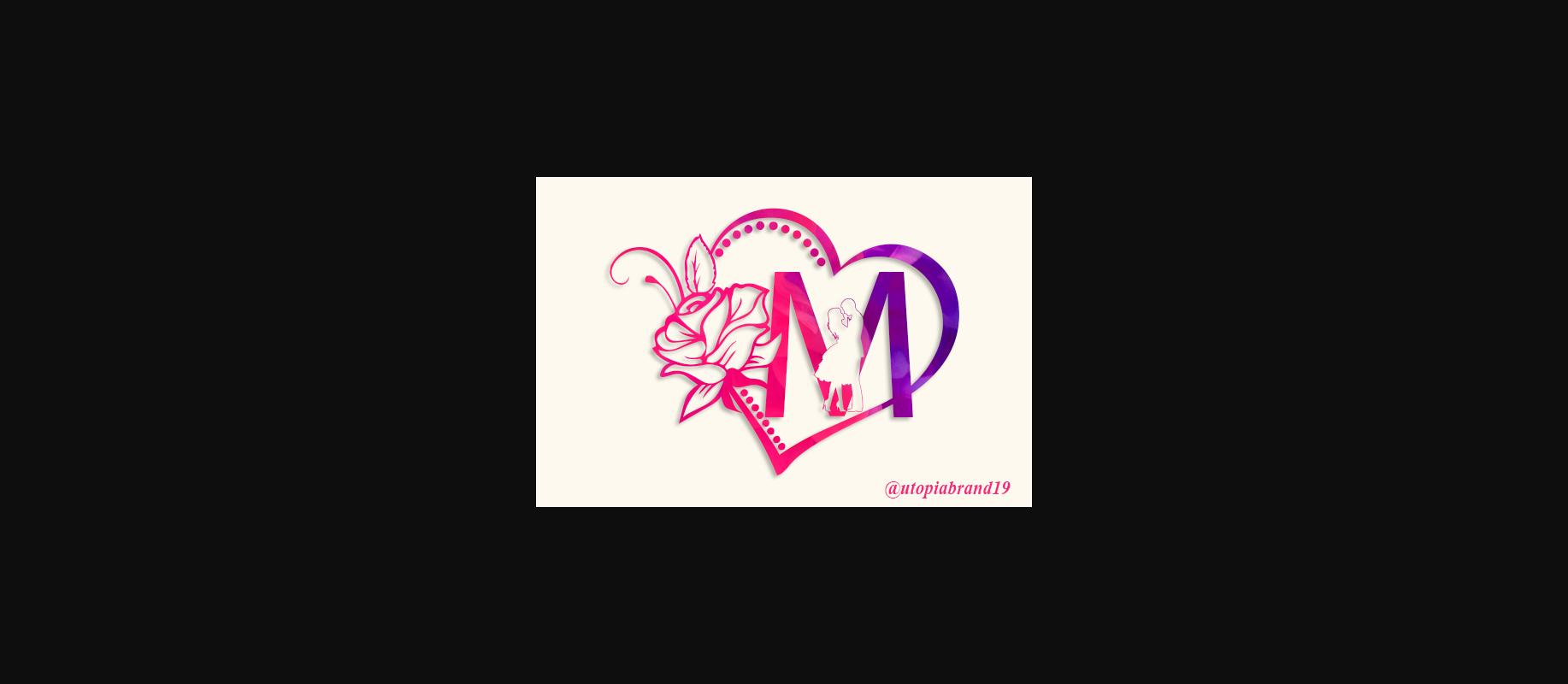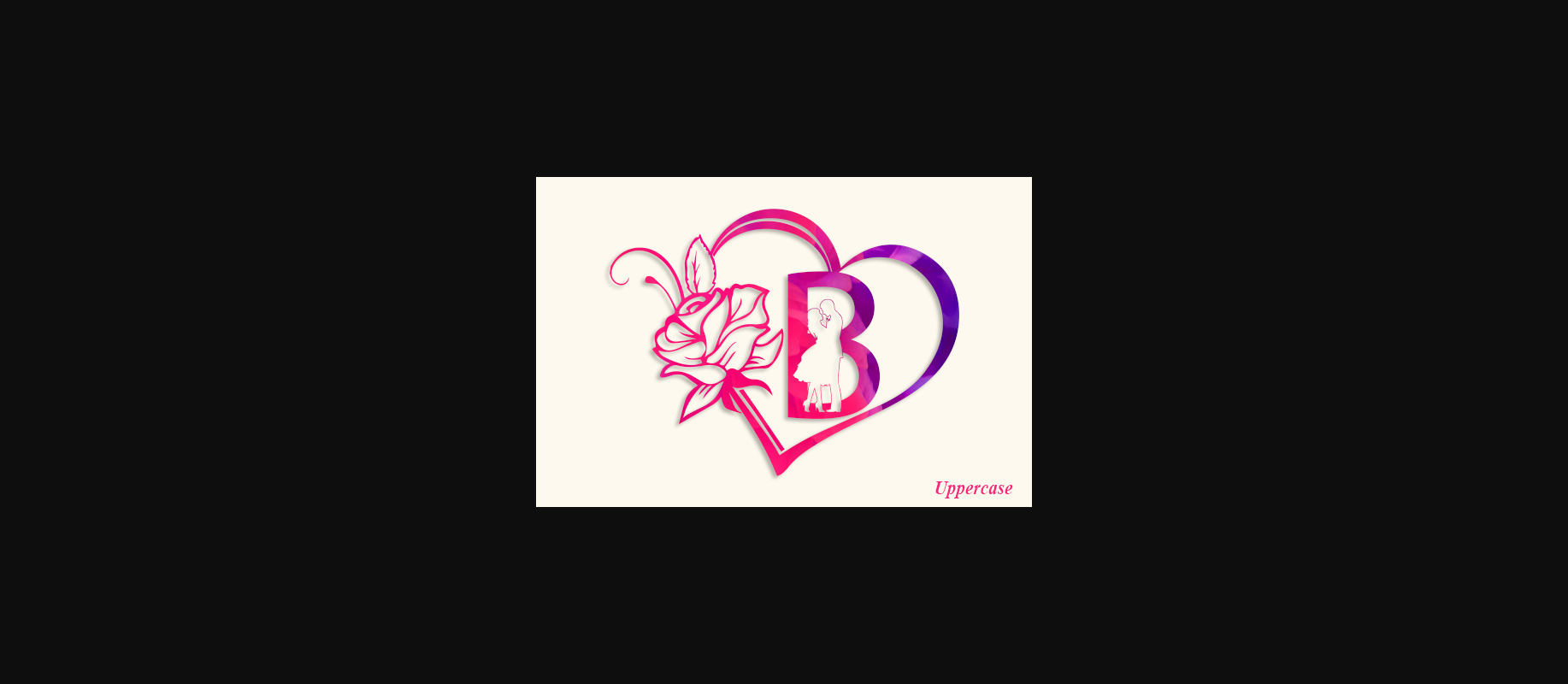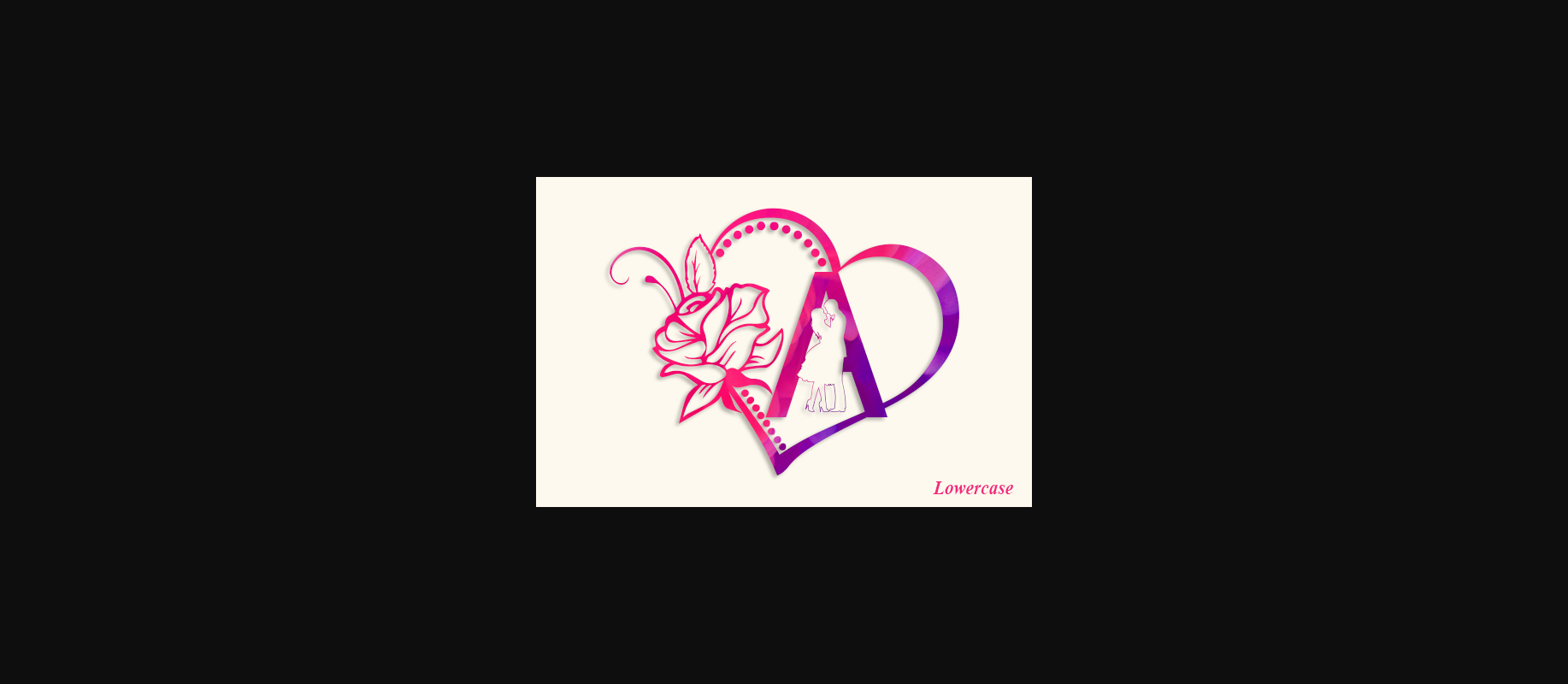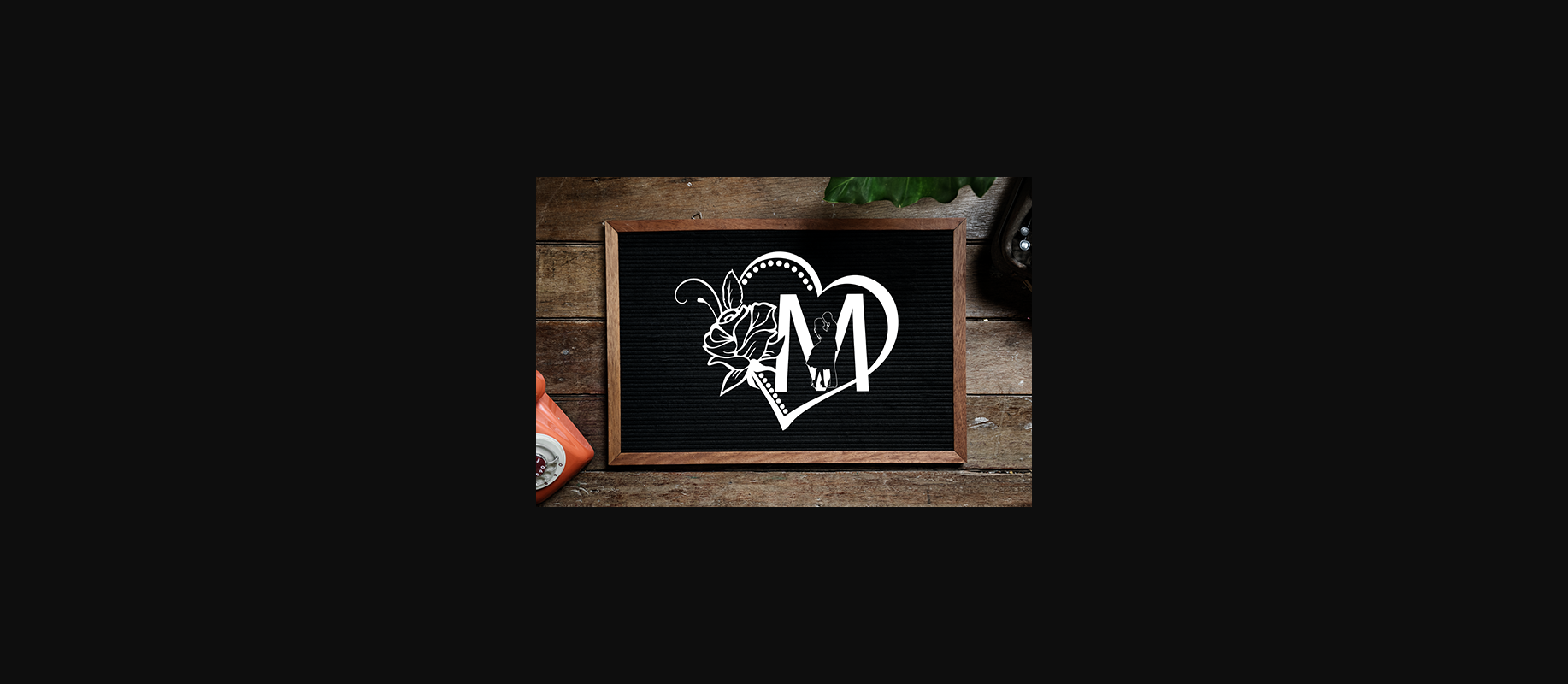
About Mi Amor Monogram Font
Make your Valentine’s Day unforgettable with Mi Amor Monogram. This romantic decorative font will help you transform your special moments into something truly memorable. Write a heartfelt love message on a monogrammed card, create a loving coupon book, or hang a romantic poster with your initials. Mi Amor Monogram is the personal touch that will make your love shine.